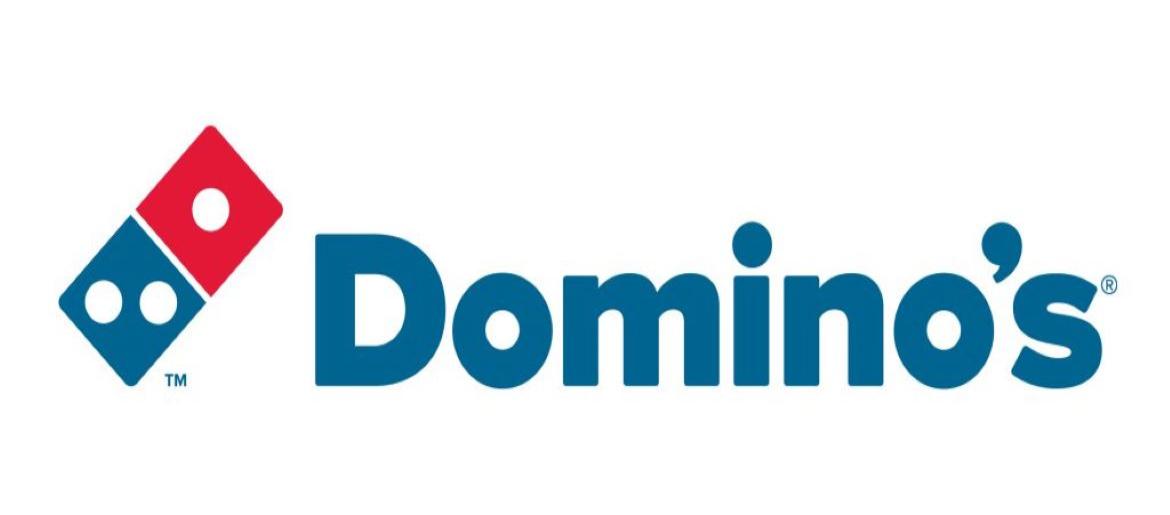
What Font does Domino’s use?
Futura Condensed ExtraBold is the closest font to the one used in the Domino’s Pizza logo.
Domino’s Font represents the evolution of pizza delivery branding through its modern and approachable typographic design. This clean lettering style has become synonymous with fast pizza delivery and customer satisfaction guarantees, perfectly capturing the brand’s commitment to delivering hot, fresh pizzas within promised timeframes while maintaining quality standards that exceed customer expectations.
Domino’s Font
The Domino’s Font features a contemporary sans-serif typeface that emphasizes efficiency and friendliness. The letterforms display rounded characteristics with balanced proportions that suggest reliable service and approachable customer care. This typographic choice reinforces the brand’s positioning as the dependable pizza delivery leader that prioritizes speed without compromising taste or quality ingredients.
What makes the Domino’s Font particularly effective is its ability to communicate both urgency and trustworthiness simultaneously. The typography’s streamlined design elements suggest quick delivery times while maintaining clear readability that builds confidence in service reliability. The iconic red, blue, and white color scheme works harmoniously with the letterforms, creating memorable brand recognition across digital platforms and delivery vehicles.
The font’s adaptability allows it to work seamlessly across mobile applications and traditional signage, ensuring consistent brand identity while supporting the company’s technology-driven approach to pizza ordering and delivery tracking. This typographic consistency has helped Domino’s establish itself as a global pizza delivery innovator.